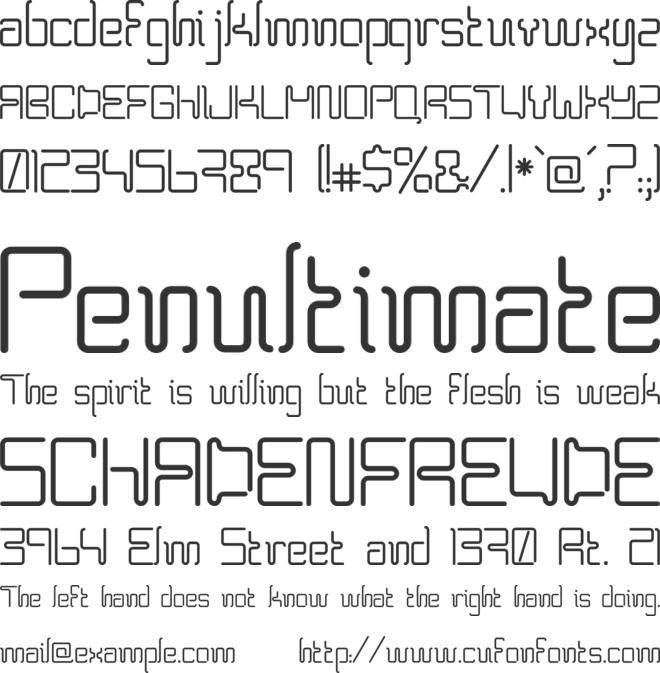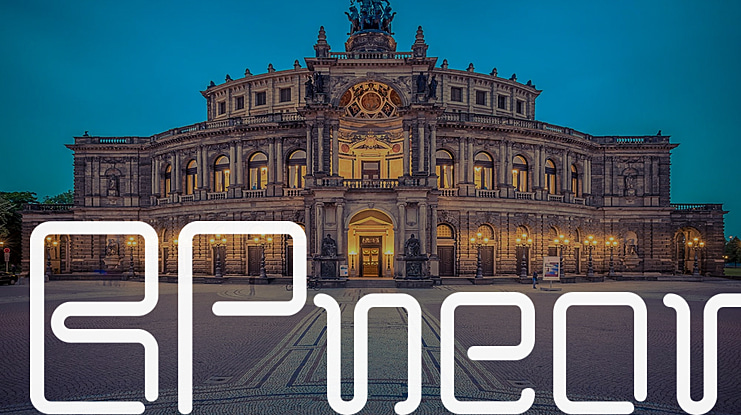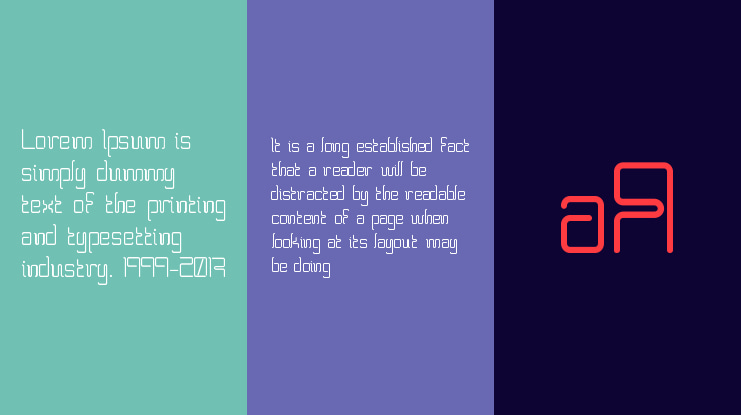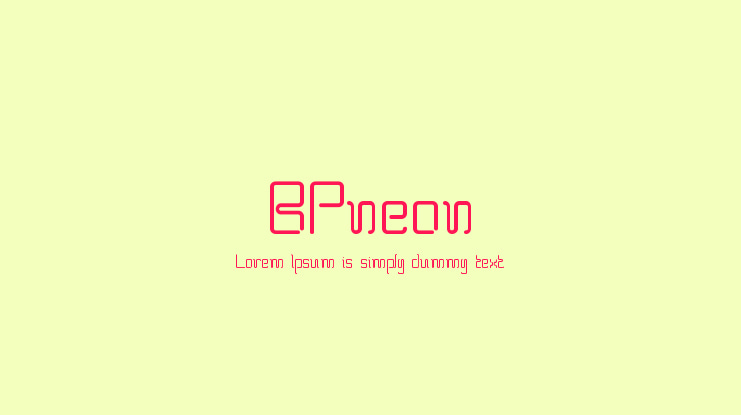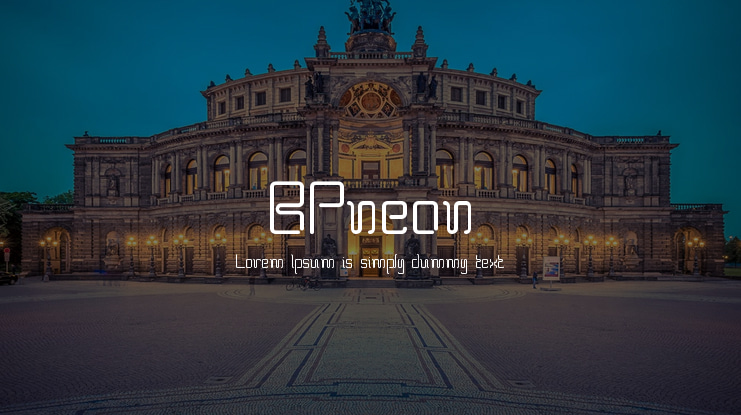
BPneon Font
George Triantafyllakos
An open, geometric, futuristic, full-of-ligatures typeface. Includes small caps. Available in OTF format (with liga, dlig, smcp, c2sc, onum, fina, swsh and aalt otf features).